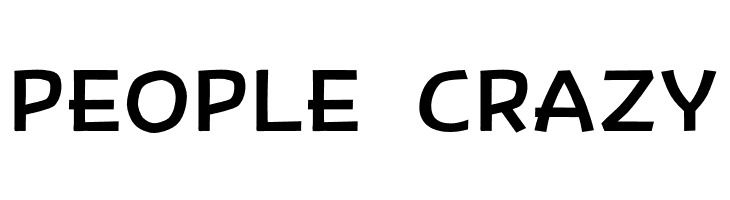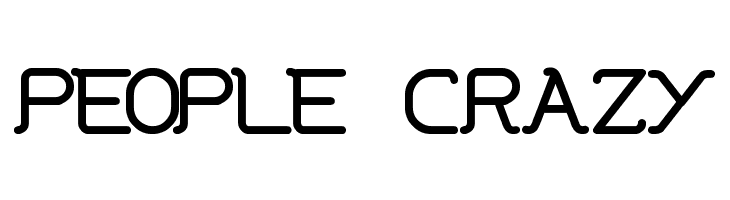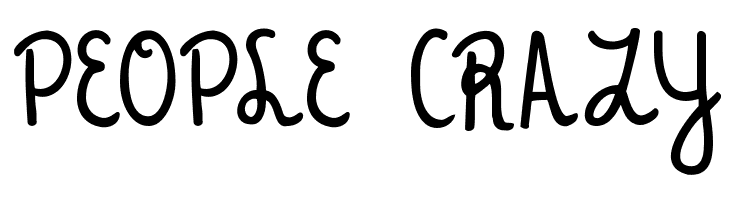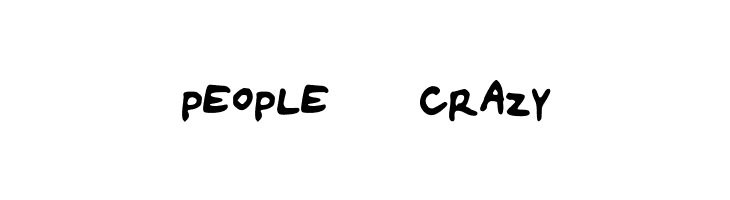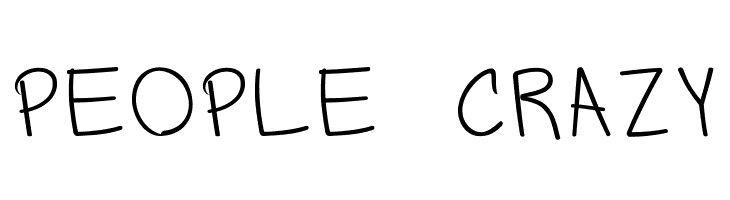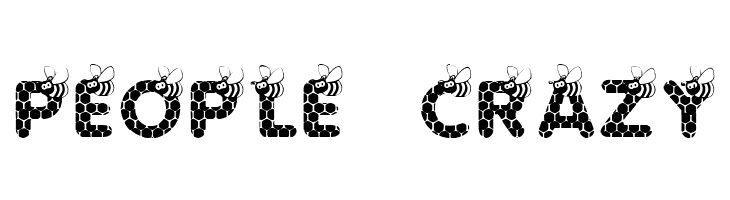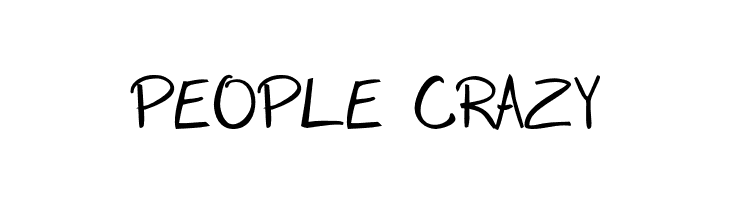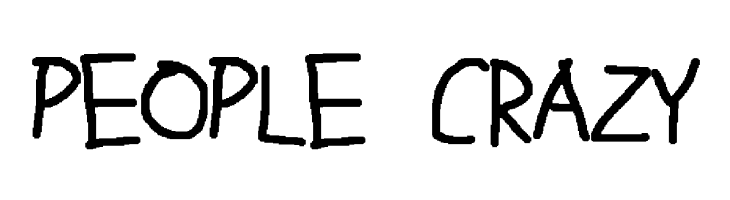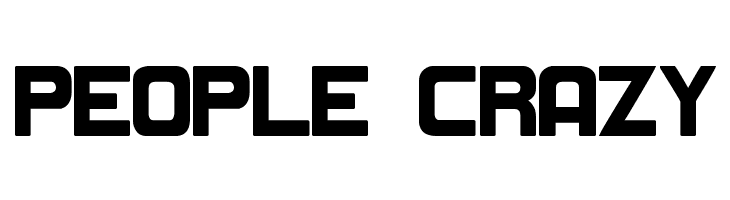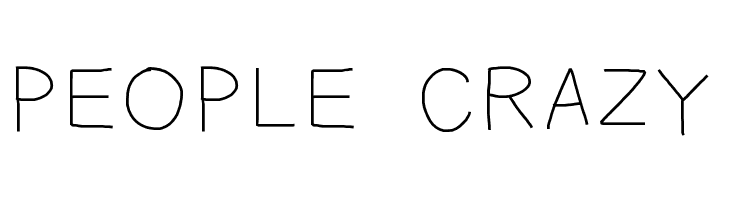
A bold, modern font with clean lines and a friendly appearance.
A playful, rounded font with a modern and friendly design.
A bold, rounded sans-serif font with a modern and friendly appearance.
A playful handwritten font with a casual and friendly style.
A bold, rounded font with a modern and clean aesthetic.
A decorative font with leaf motifs integrated into each character, offering a nature-inspired look.
A clean, modern font with rounded edges and a friendly appearance.
A playful, rounded font with smooth curves and a friendly appearance.
A decorative font with characters formed by seed-like shapes, offering a playful and organic look.
A bold, rounded font with a playful and friendly appearance.
A playful, bold font with rounded, thick strokes and a friendly appearance.
A bold, rounded font with a friendly and modern aesthetic.
A modern, rounded font with smooth curves and a friendly appearance.
A bold, rounded font with a playful and modern aesthetic.
A playful, handwritten font with a casual and friendly appearance.
A modern, rounded font with a clean and friendly appearance.
A bold, rounded font with smooth, consistent strokes and a friendly appearance.
A rounded, geometric font with uniform strokes and a modern, approachable style.
A playful, bold handwritten font with a casual and friendly style.
A modern, rounded font with a clean and approachable design.
A playful, bold, hand-drawn font with a friendly and whimsical style.
A smooth, rounded font with a slight slant, offering a friendly and approachable style.